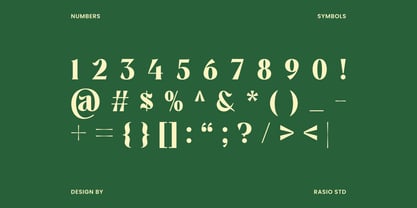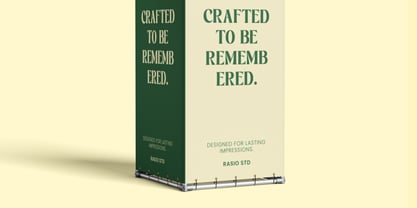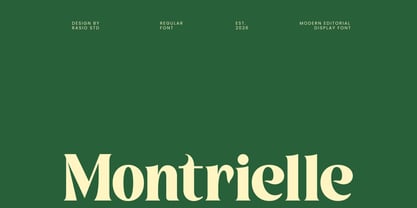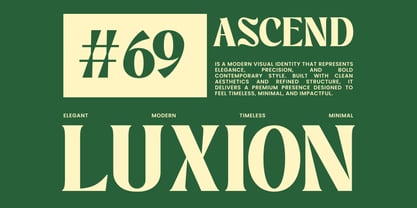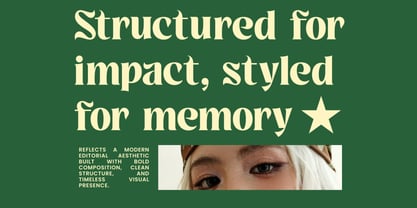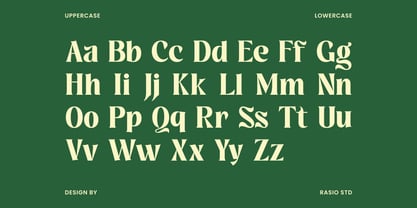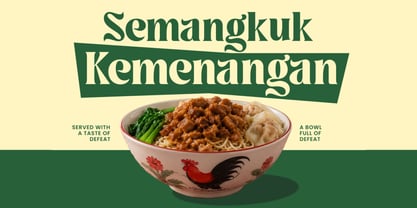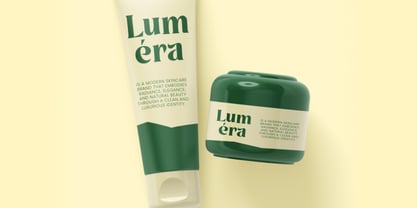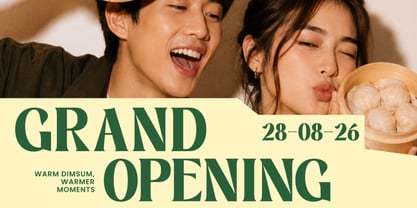
Montrielle
by Rasio Studio
The Montrielle Font Family was designed by Fajar Indra and published by Rasio Studio. Montrielle contains 1 styles. More about this family
Montrielle Modern Editorial Display Font is a distinctive serif typeface that blends contemporary editorial styling with expressive character details. The font features high-contrast strokes, sculpted curves, and decorative terminals that introduce movement and personality to every letterform. Its carefully crafted structure combines classic serif foundations with artistic flourishes, creating a sophisticated display typeface that feels both refined and visually engaging.
Designers: Fajar Indra
Foundry: Rasio Studio